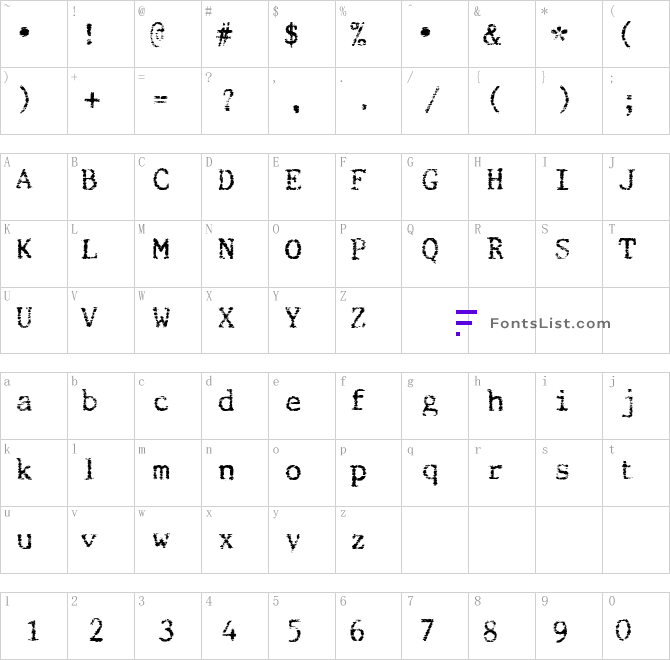
- Font Name:Beccaria
Beccaria.ttf is a very beautiful artistic font, Beccaria.ttf is widely used in the design and printing of various books and pictures,Beccaria.ttf has a strong visual impact,Beccaria.ttf is a commonly used font in newspapers, magazines and books, and is used in posters, e-commerce Poster design, store design, logo design, font design and other fields.Beccaria.